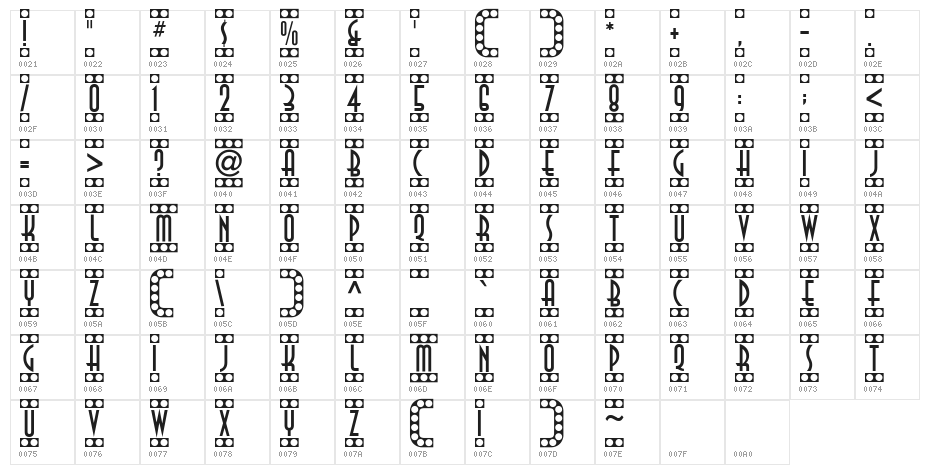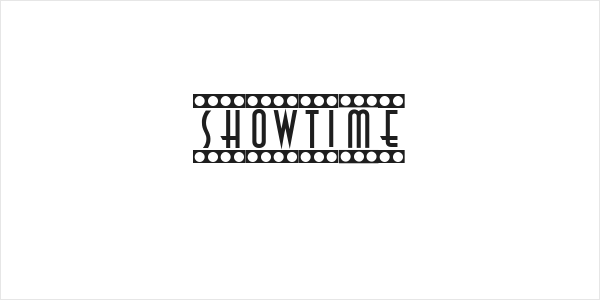
Showtime Font
Showtime Description
This font features a distinct Art Deco style with geometric shapes and sharp angles. The uppercase letters are tall and narrow, with unique embellishments that give a sense of elegance and sophistication. The lowercase letters maintain a similar aesthetic, providing a cohesive look. The numerals are stylized, matching the overall theme, and the special characters are designed to complement the letterforms. The font's design is reminiscent of the glamour and luxury of the early 20th century, making it ideal for projects that require a touch of vintage charm.
| Use Case | Logos, Posters, Invitations |
| Proposed Projects | Ideal for vintage-themed posters, luxury brand logos, and elegant invitations. |